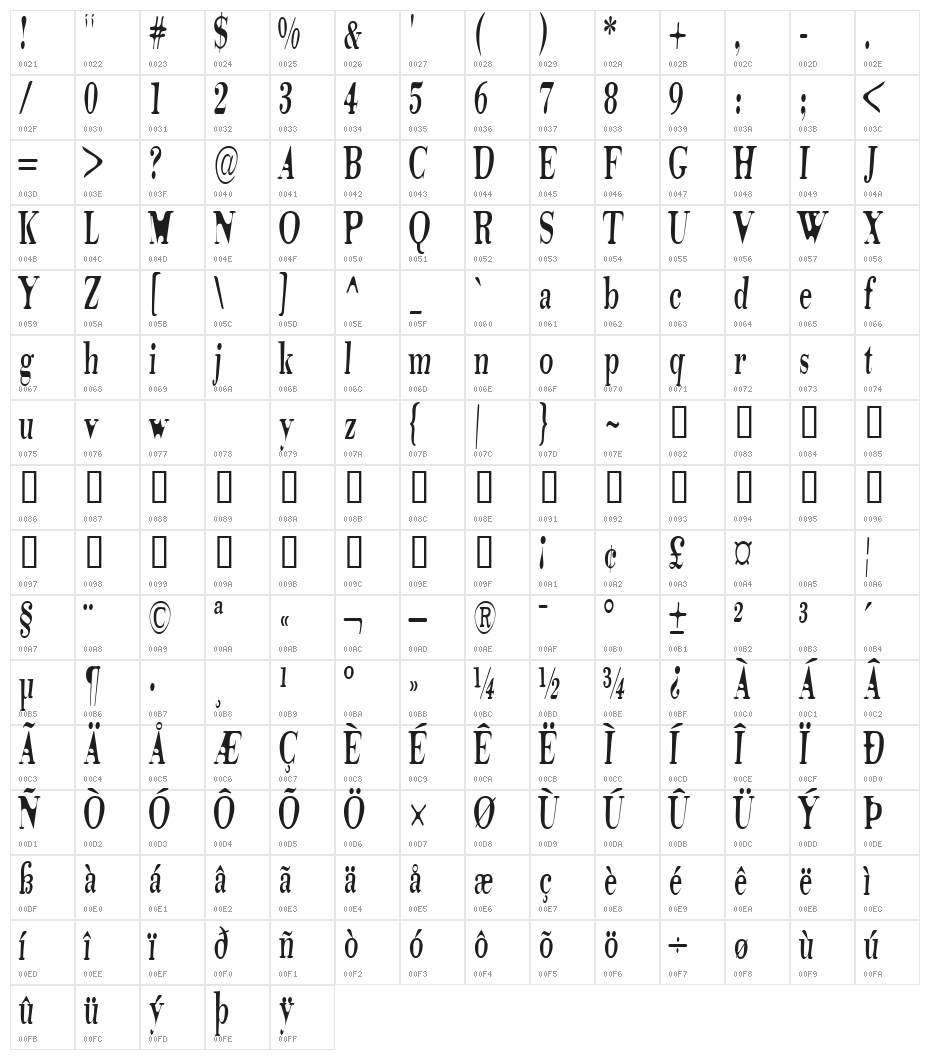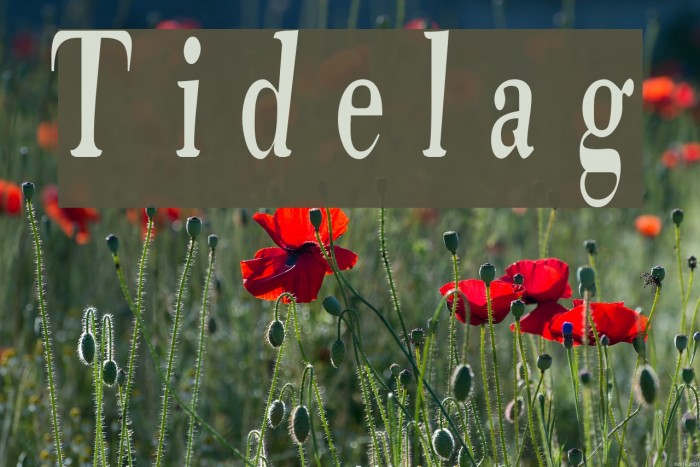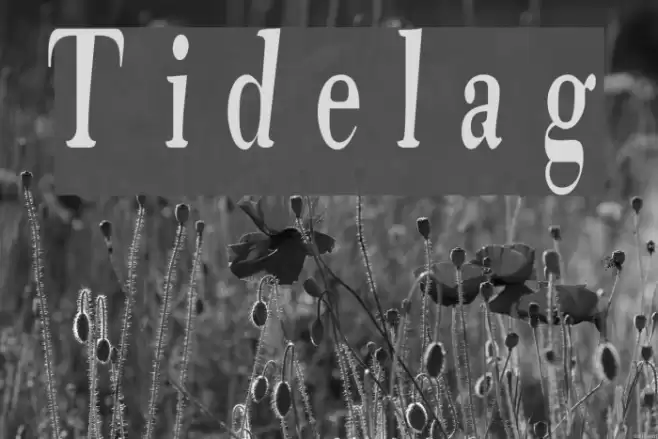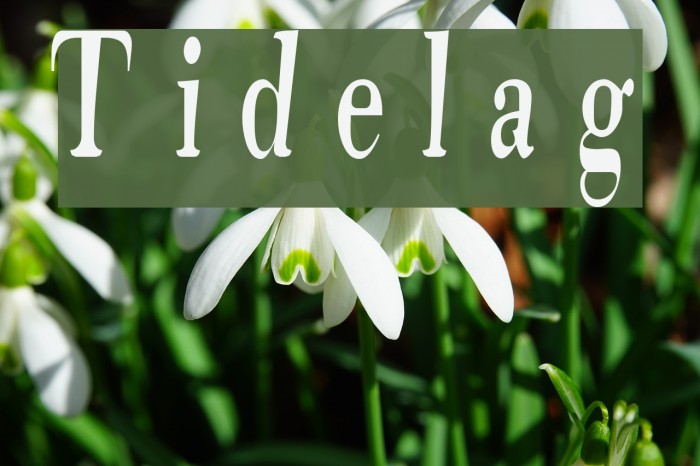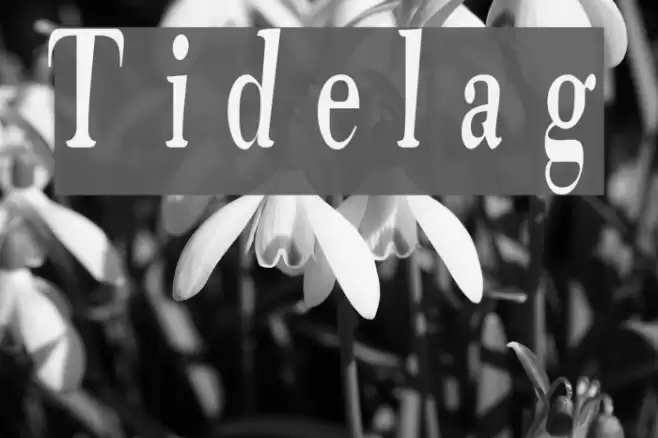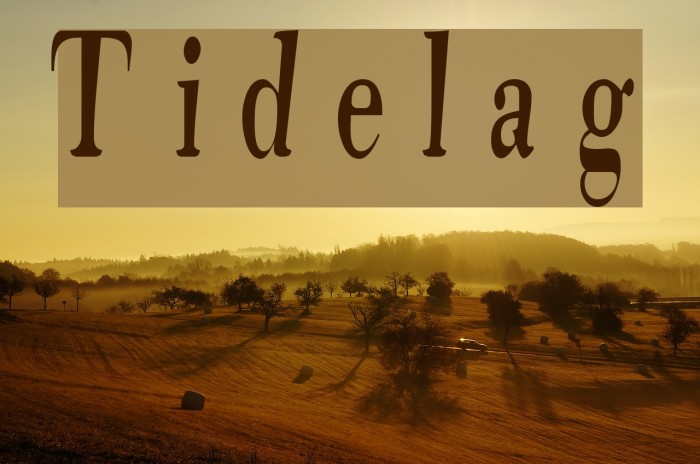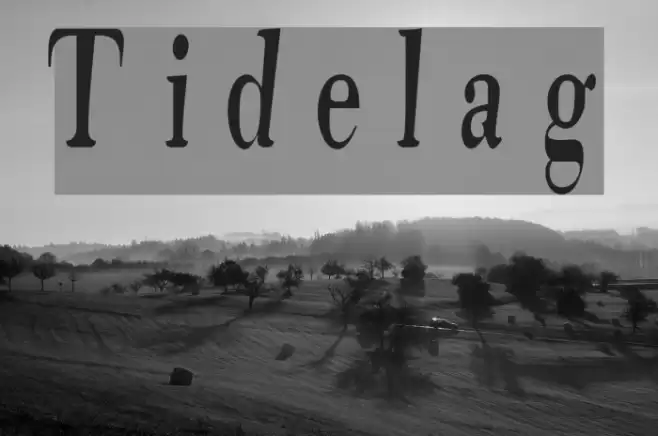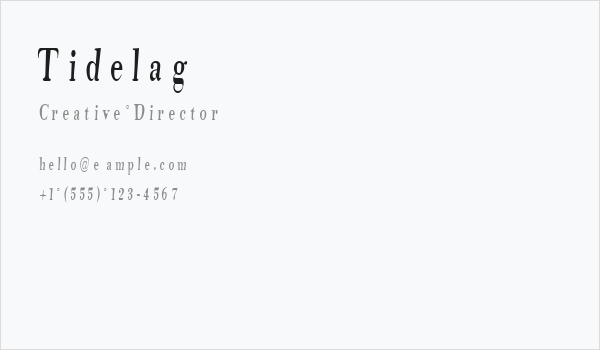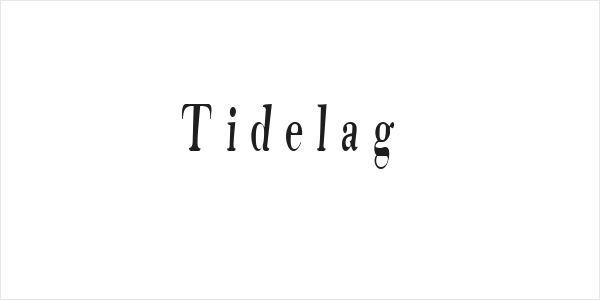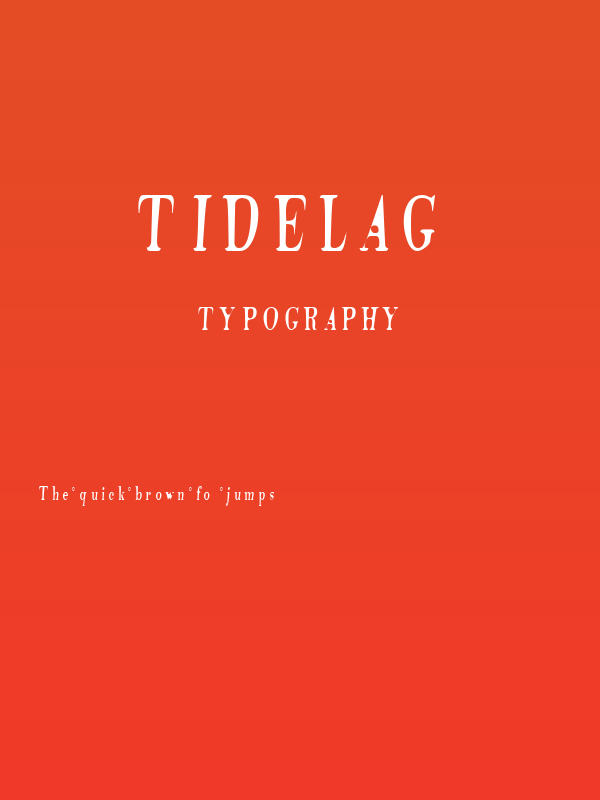
Tidelag Font
Tidelag Description
This font features a unique blend of classic and modern elements, characterized by its distinctively bold and slightly whimsical serifs. The uppercase letters exhibit a playful yet sophisticated style, with varying stroke widths that add a dynamic feel. The lowercase letters maintain a consistent flow, complementing the uppercase with their elegant curves. Numbers are designed with a bold presence, ensuring readability while maintaining the font's overall aesthetic. Special characters are crafted with attention to detail, adding to the font's versatility. This font is ideal for projects that require a touch of elegance and creativity.
| Use Case | Headlines, Logos, Editorial Design |
| Proposed Projects | Ideal for branding, editorial design, posters, and creative projects that require a distinctive and elegant touch. |